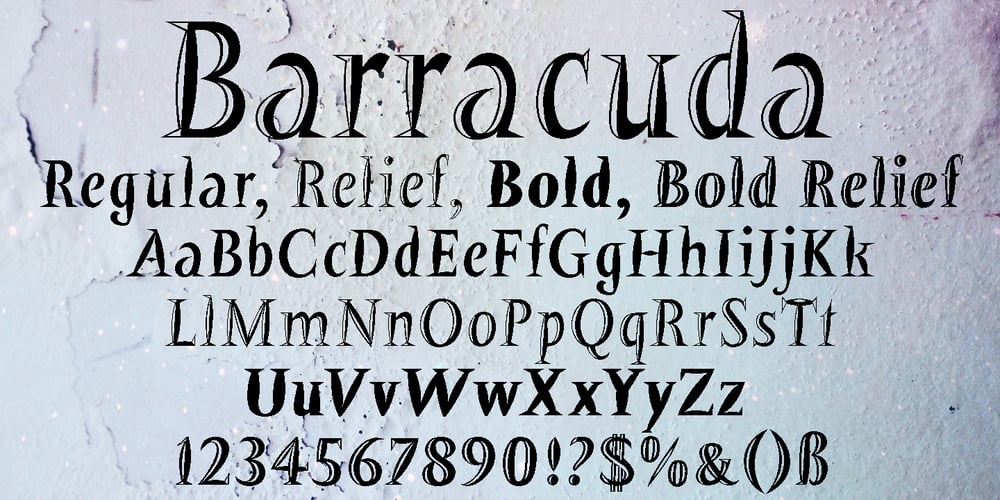
Barracuda Font Family was designed by published by Wiescher Design. Barracuda contains 4 styles and family package options. Barracuda has this sharp, sharky look and I do a lot of diving with my best friend. What else is there to say? If you see a shark say hello from me. Yours from under the Red Sea, Gert Wiescher